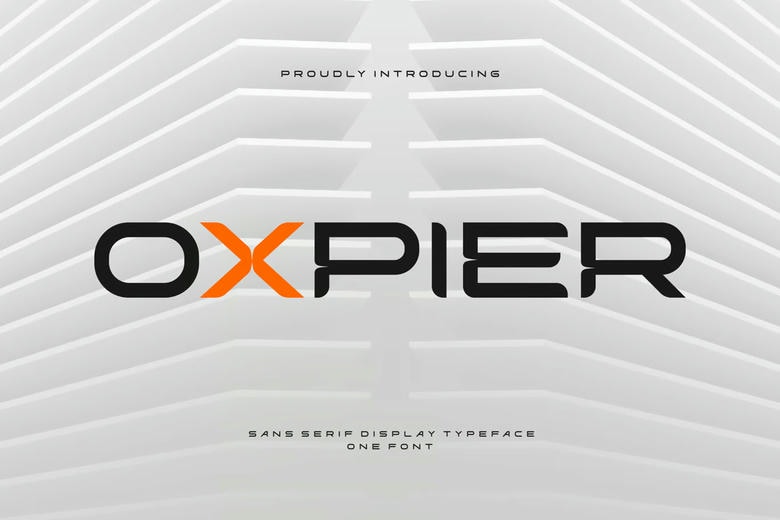
Oxpier Font
Oxpier Font is a bold and authentic display font. The font is suitable for any branding project like Logo, t-shirt printing, esports and many more. Excellent in a wide range of contexts
Oxpier Display Font